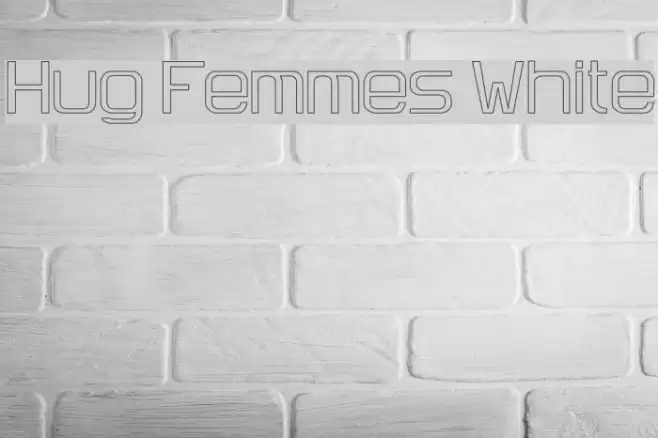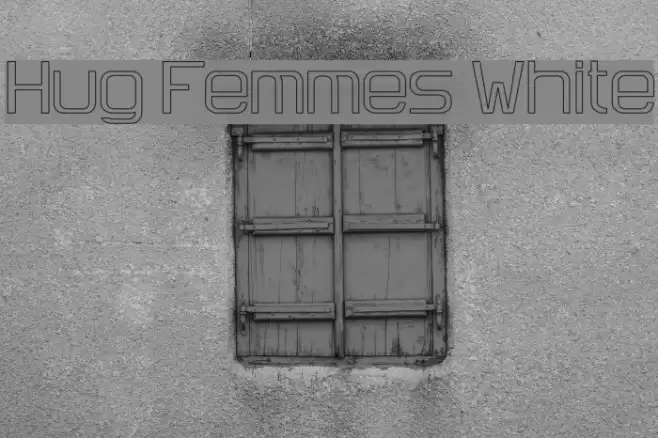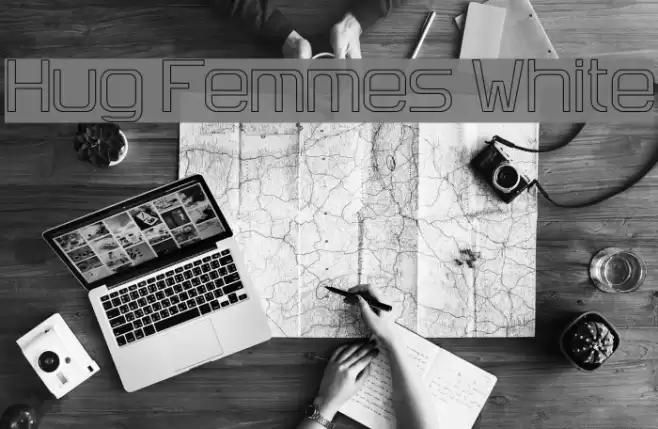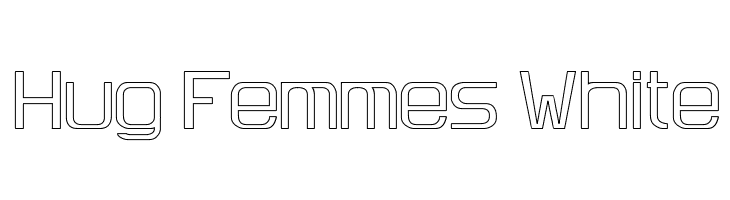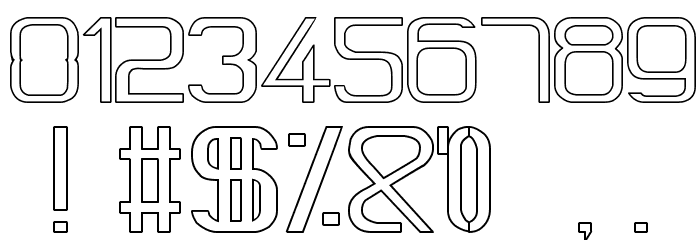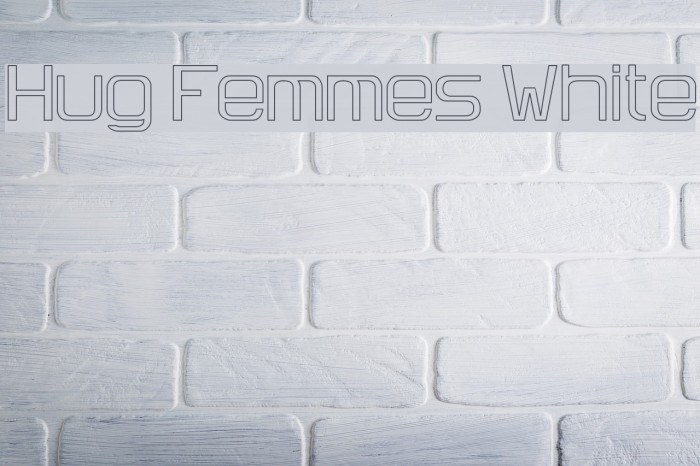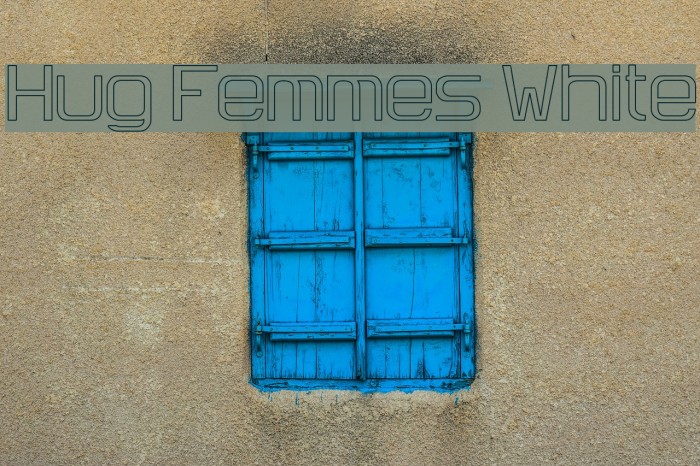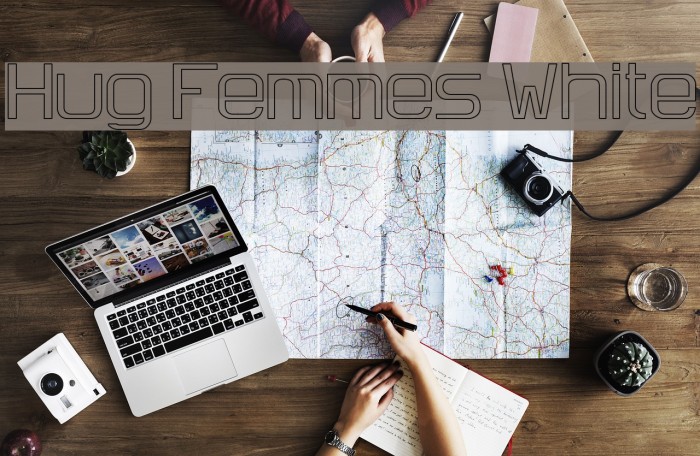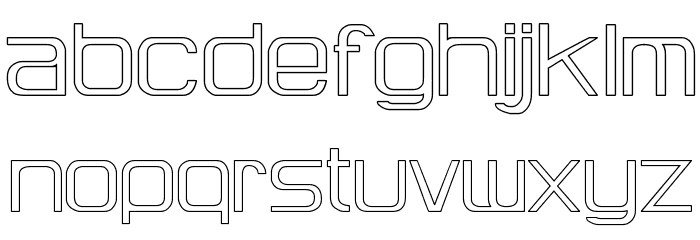
Hug Femmes White Font
Hug Femmes White Description
This font features a modern, geometric design with clean, open lines and a hollow interior. The uppercase and lowercase letters maintain a consistent structure, emphasizing straight lines and sharp angles, which gives it a futuristic and technical appearance. The numerals and special characters follow the same design principles, ensuring uniformity across the character set. The overall look is sleek and minimalistic, making it suitable for contemporary design projects that require a distinctive and eye-catching typeface.
A modern, geometric font with clean, open lines and a hollow interior from Uncategorized fonts.
- Proposed Projects: Ideal for technology branding, futuristic posters, modern websites, and innovative product packaging.